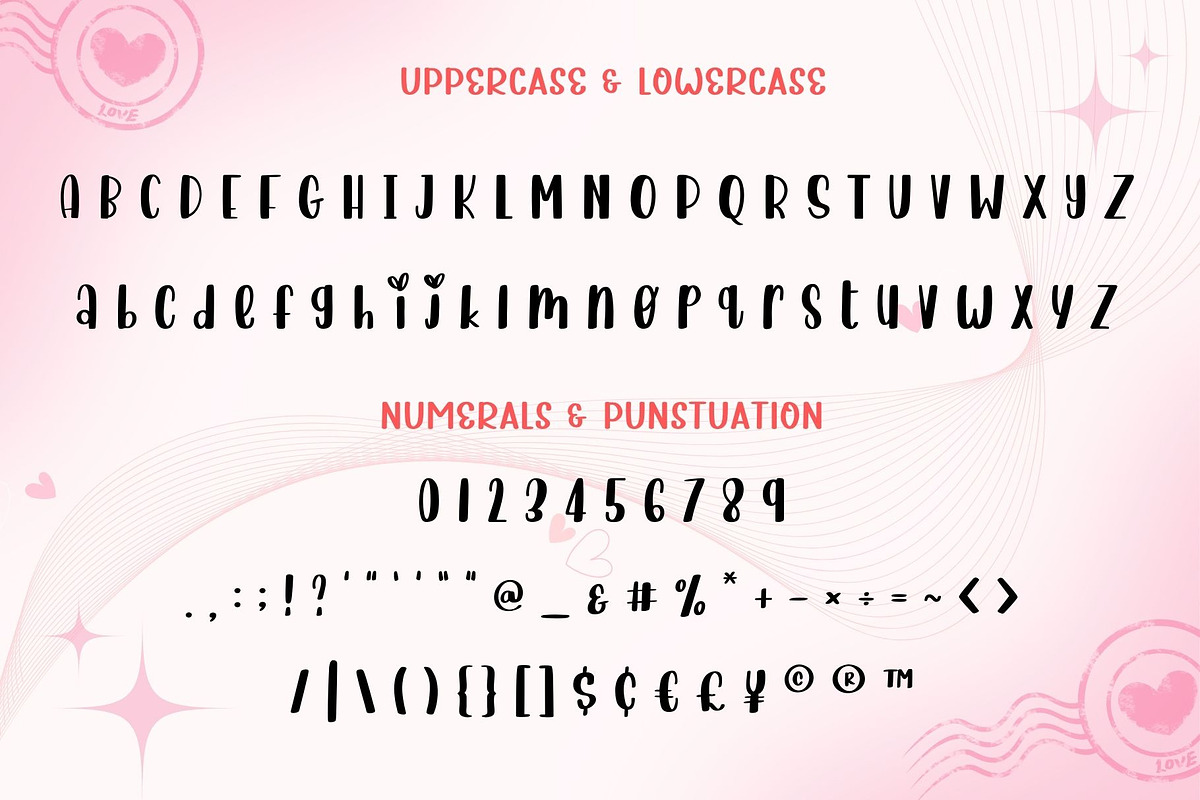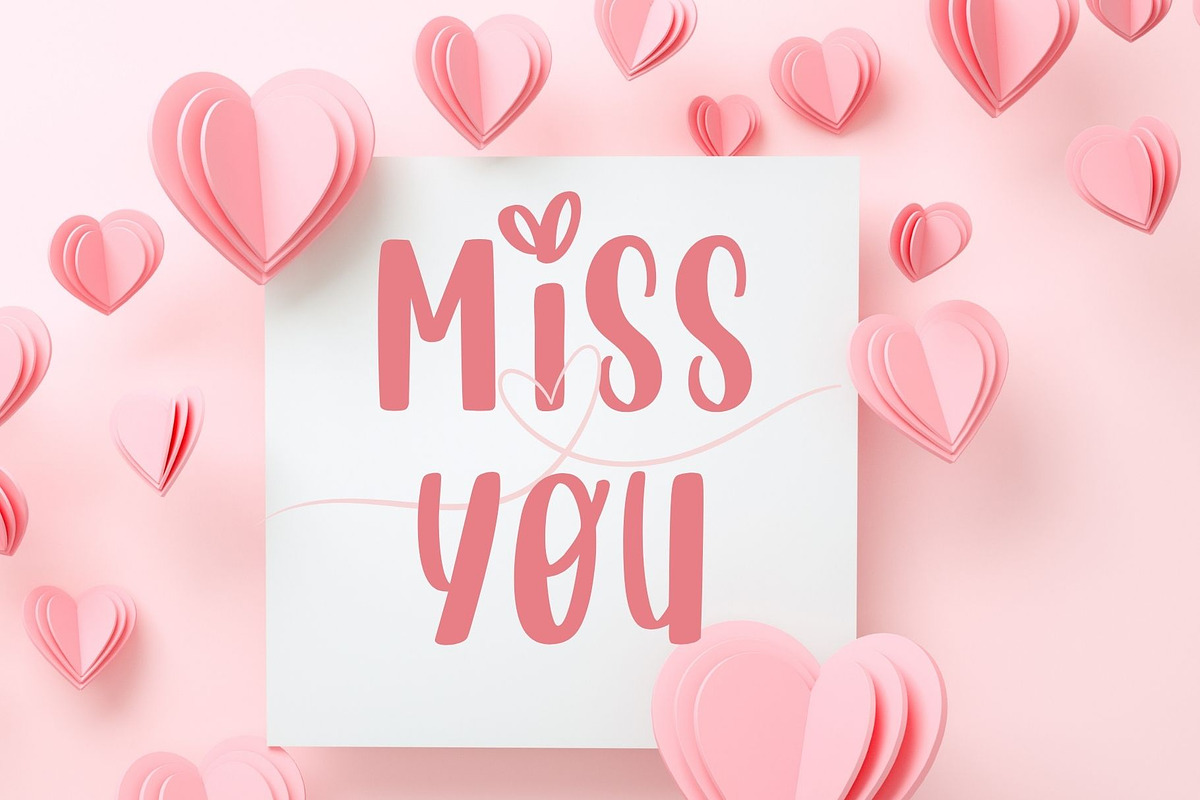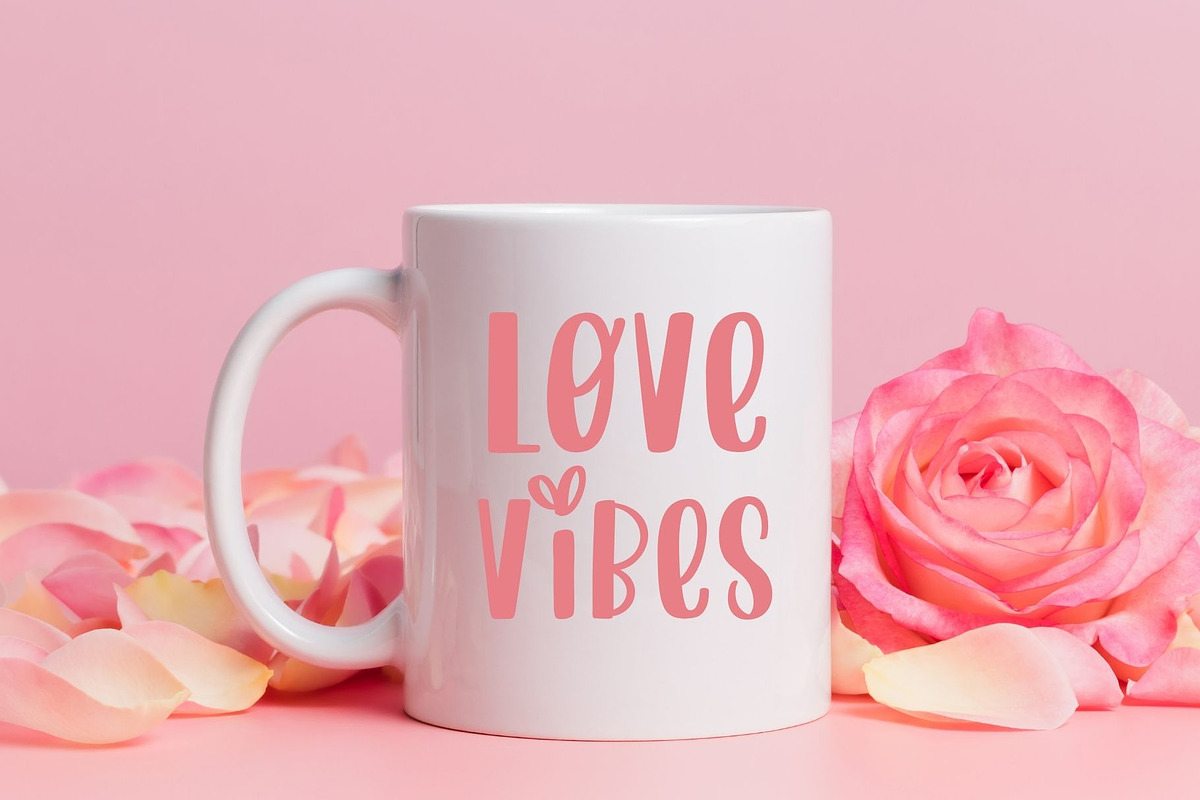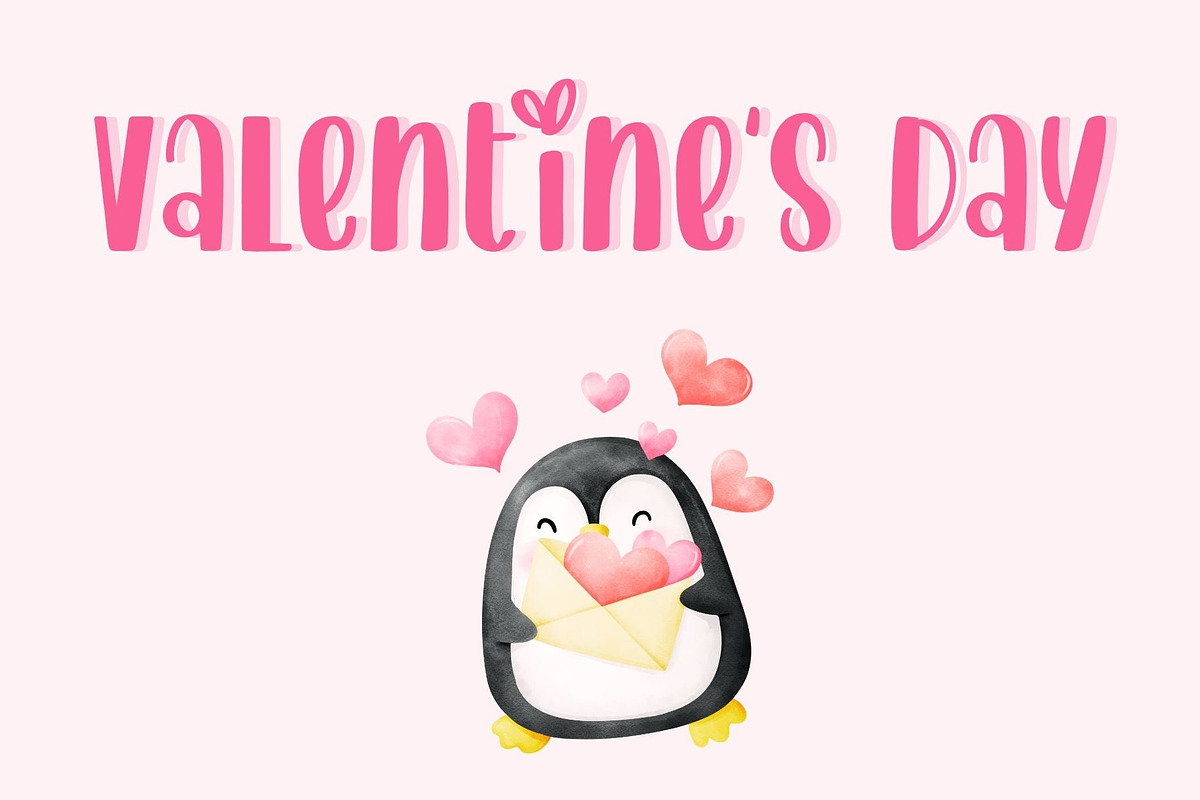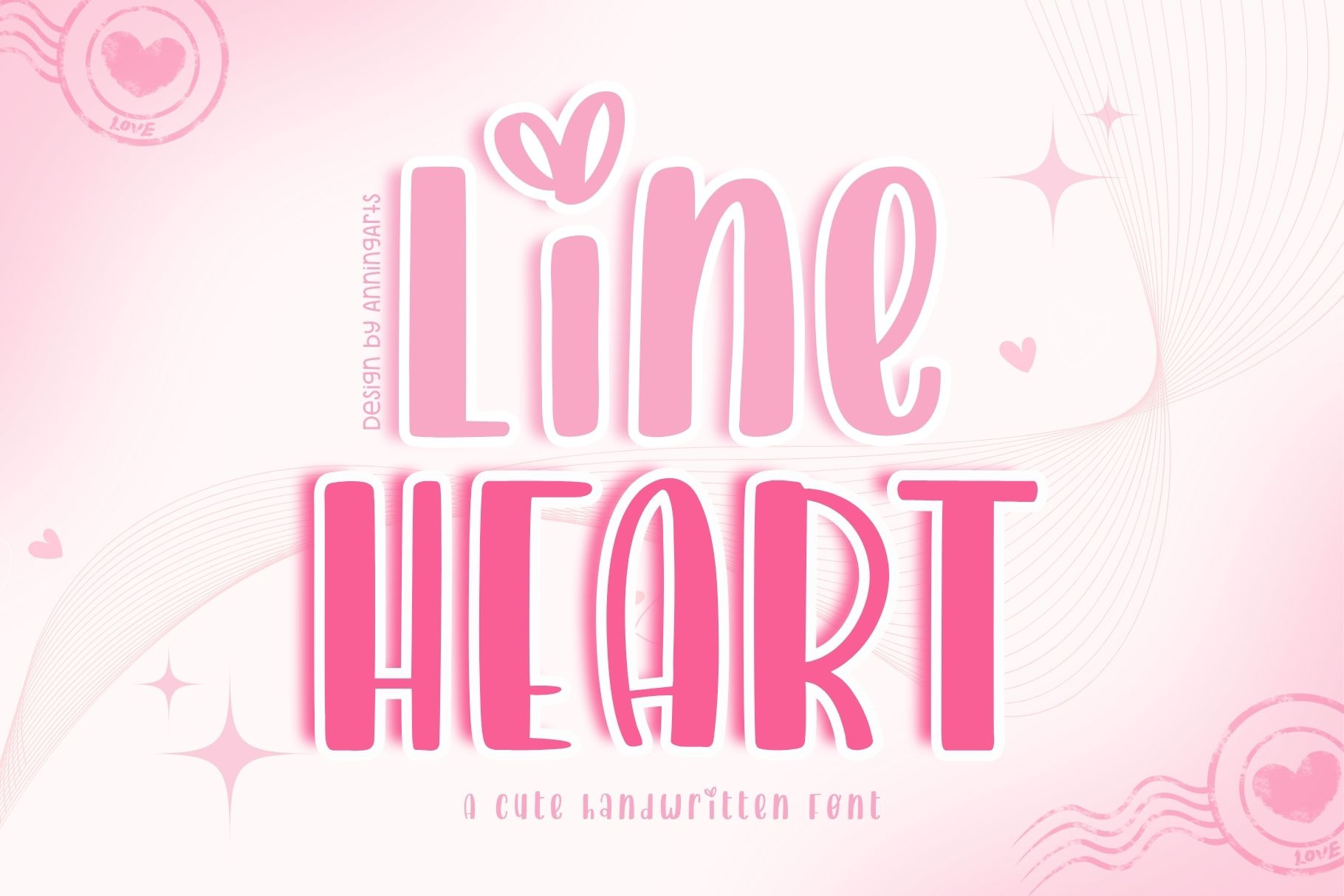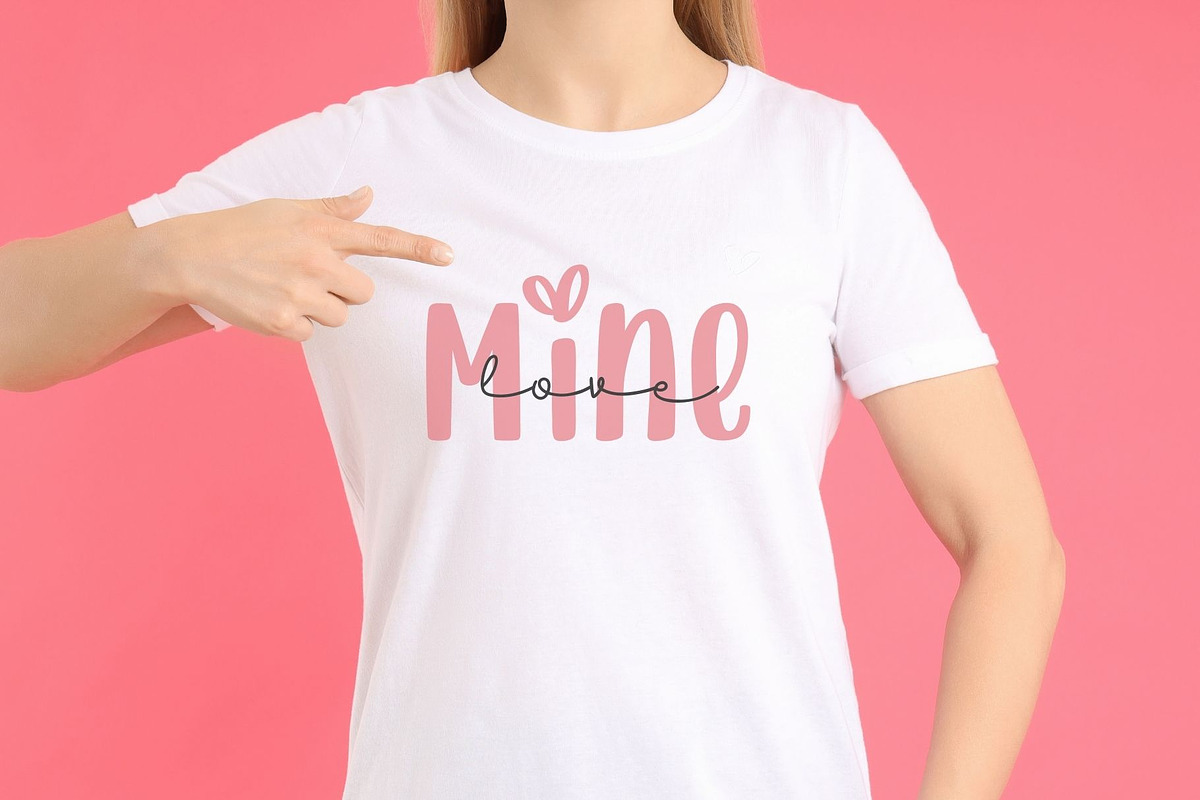
Lineheart - Handwriting font
Lineheart is a charming and playful handwritten font that adds a touch of sweetness to any project. Featuring rounded, bold letterforms with whimsical heart motifs, this font is perfect for love-themed designs, invitations, greeting cards, and more. Its friendly and approachable style brings joy and warmth to every word, making it ideal for creative and romantic projects.